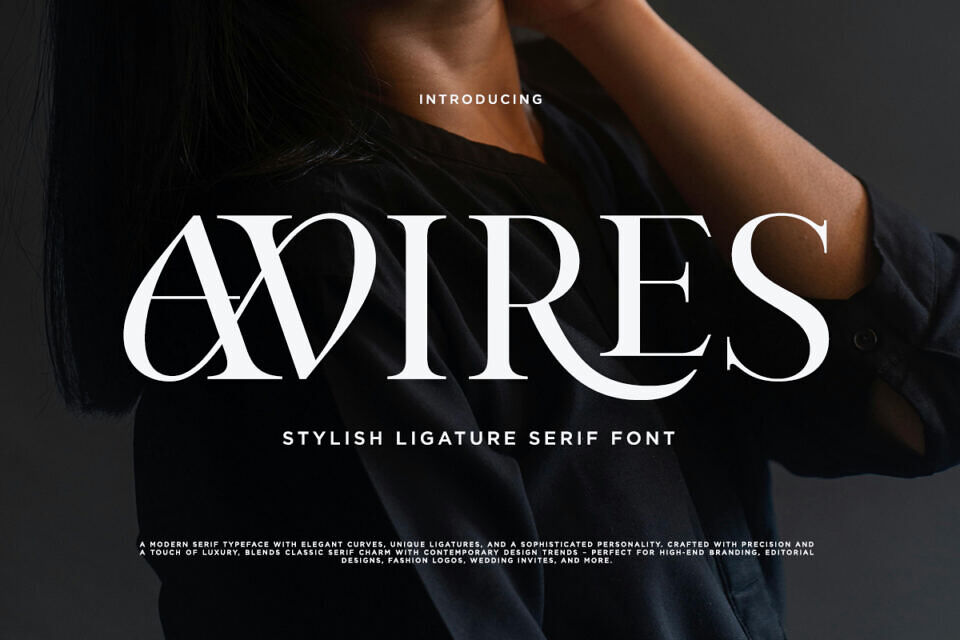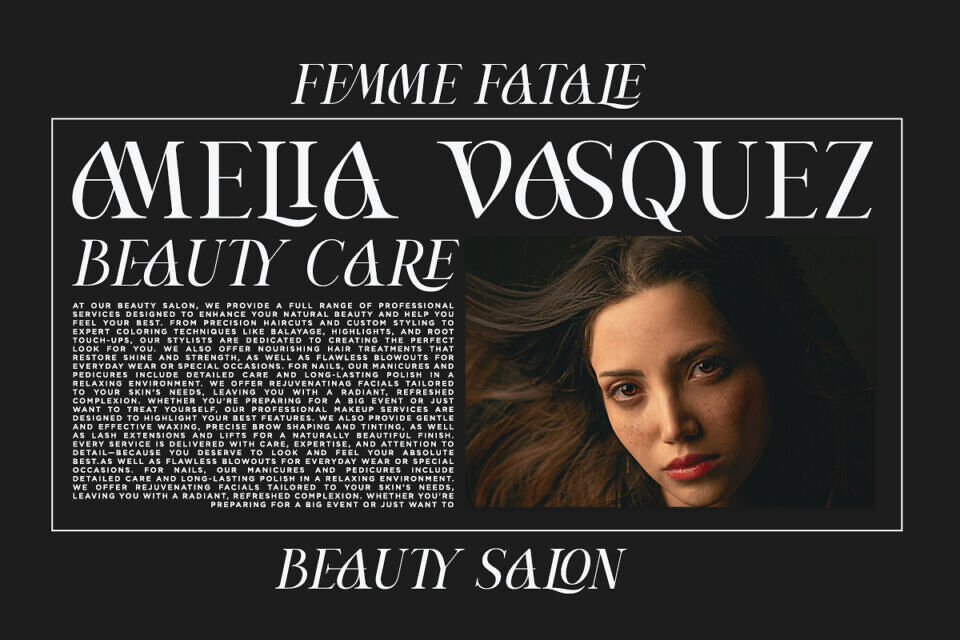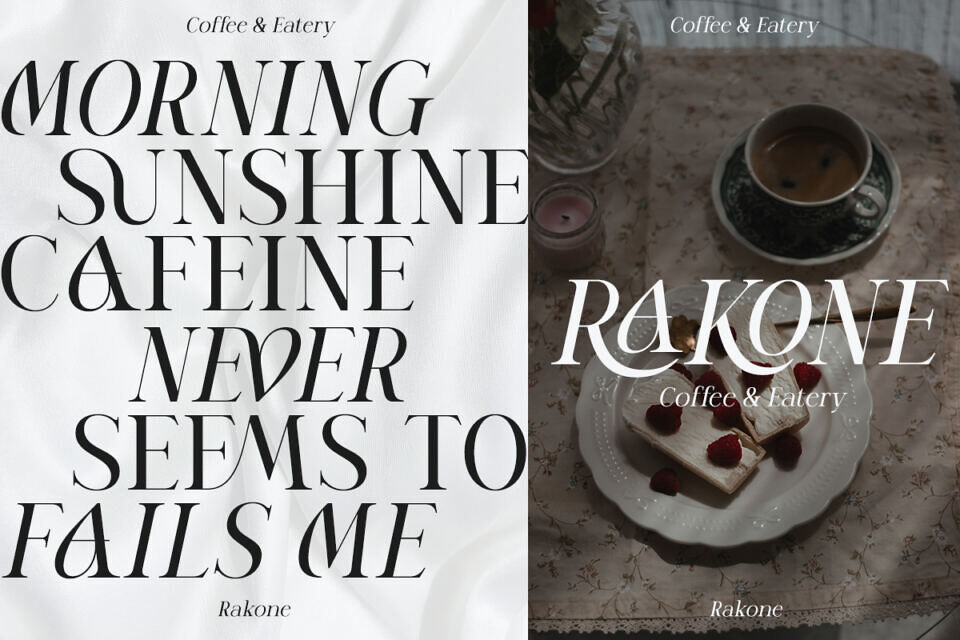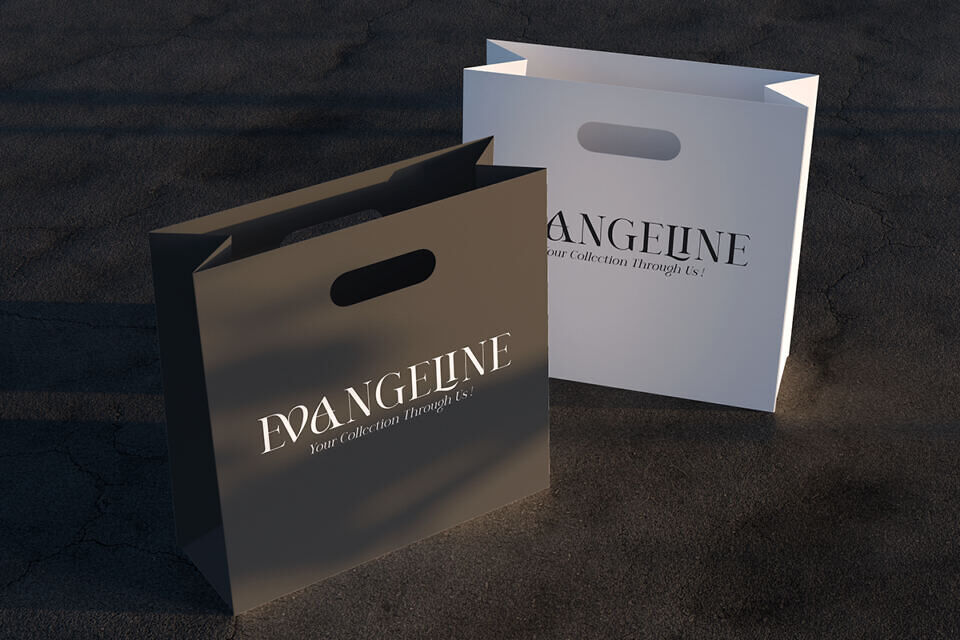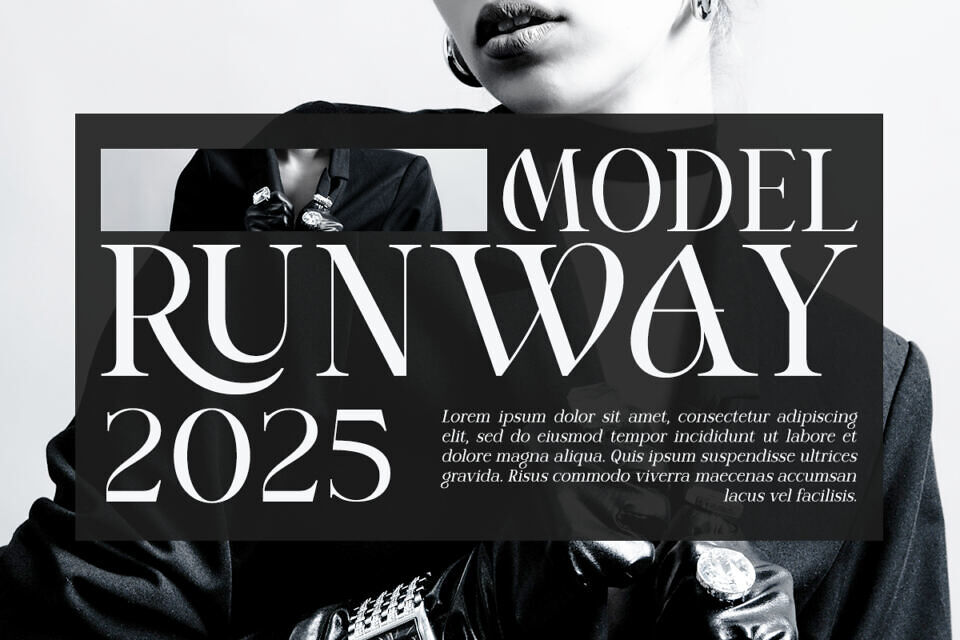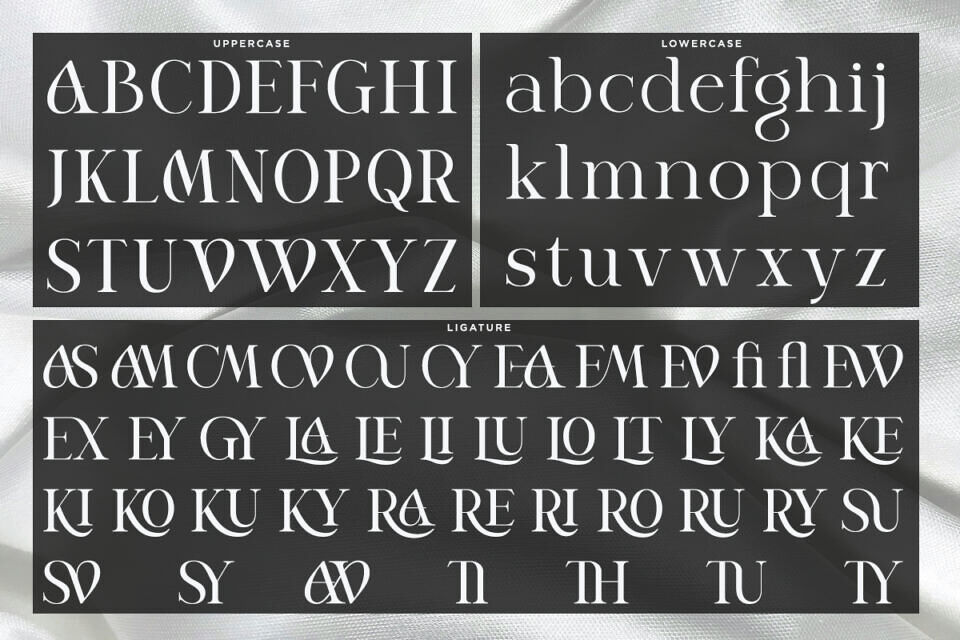
Avires Font
Avires is stylish ligature serif font with sophisticated and high-fashion serif typeface designed to command attention and elevate any creative project.
With its elegant curves, sharp serifs, and luxurious ligature combinations, Avires brings a perfect balance of classic charm and contemporary flair. Perfect for branding, headline, title, logo, website, business card, etc.